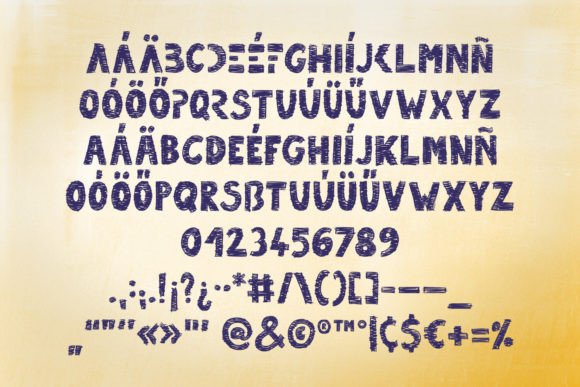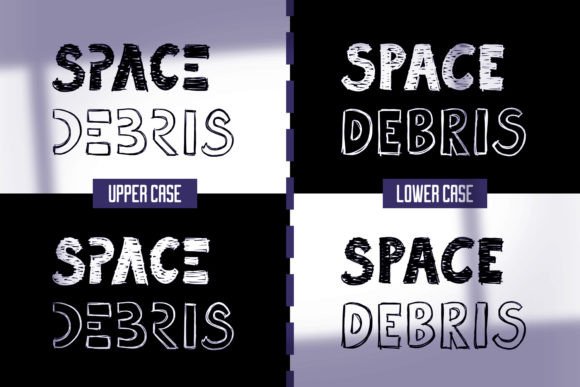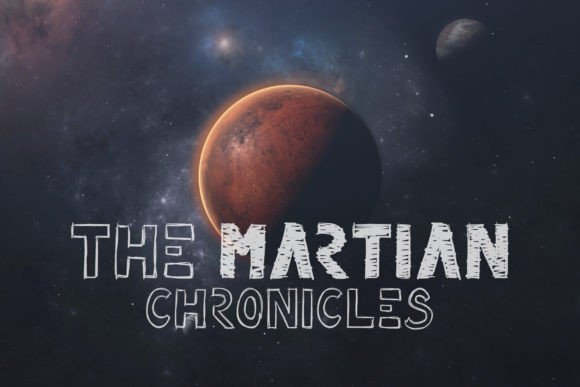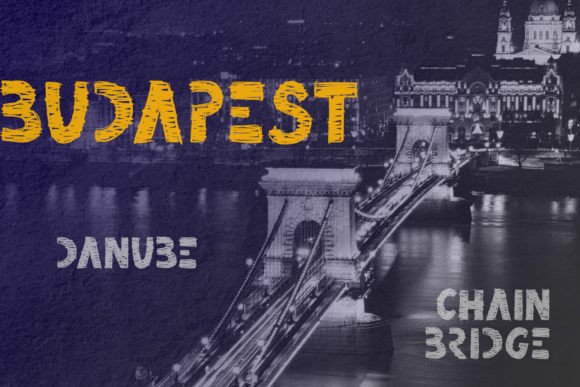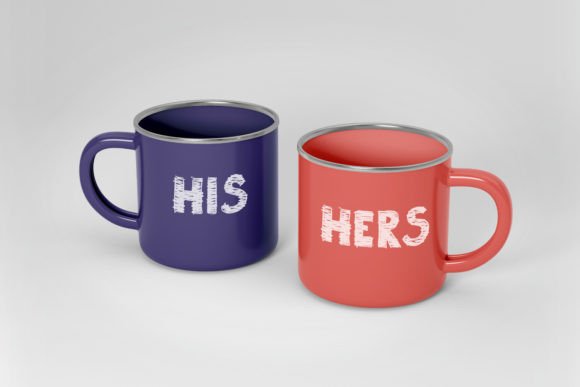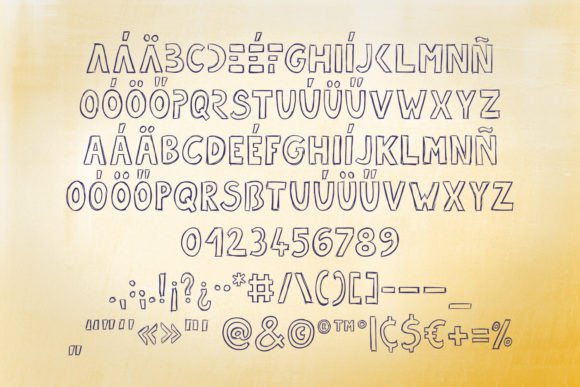
Introduction to Scribulous Font
Do you remember that moment when you’re brainstorming ideas for a new project, and suddenly, the perfect font pops into your mind? For designers, finding the right font can be the difference between a good design and a great one. The Scribulous Font is one such gem that can elevate your creative project to the next level.
This handcrafted font duo is bursting with character, making it perfect for a wide range of applications, from logotypes and memes to infographics and apparel. With its high-quality design, the Scribulous Font is a valuable resource for designers looking to add a touch of personality to their work.
Key Features of Scribulous Font
- High-quality design: The Scribulous Font is a unique and creative project that offers a high-quality design suitable for various projects.
- Unique characteristics: The Scribulous Font features a unique, hand-drawn style with intricate details, making it an excellent choice for creative projects.
Honest Review: Scribulous Font
I recently had the chance to work with the Scribulous Font, and I must say, it’s a great addition to any designer’s toolbox. This high-quality font is perfect for creative projects that require a unique touch.
Here are some of the things that work well with the Scribulous Font: ✨
- Unique and creative design
- Wide range of applications
- Some users may find the font to be a bit too quirky or unconventional
Overall, I’m really impressed with the Scribulous Font. It’s a high-quality design resource that’s perfect for creative projects. With its unique design and wide range of applications, it’s a great addition to any designer’s toolbox.
Here are some tips for getting the most out of Scribulous Font:
Use Scribulous Font in combination with other design elements to create a unique and eye-catching design.
Experiment with different font sizes and styles to create visual interest.
Use Scribulous Font in a variety of creative projects, such as logos, posters, and business cards.
Scribulous Font is perfect for:
Creating high-quality designs for your business or personal projects.
Designing logos, posters, and other visual materials for events and promotions.
Adding a unique touch to your presentations and documents.